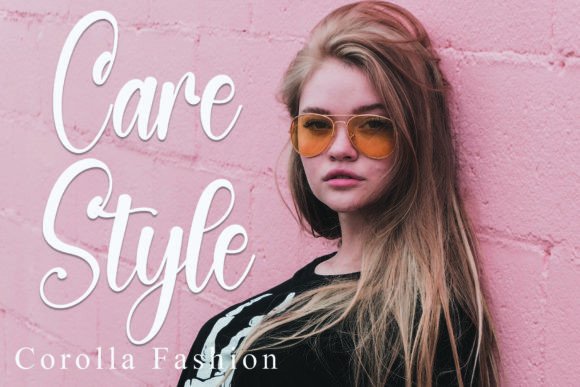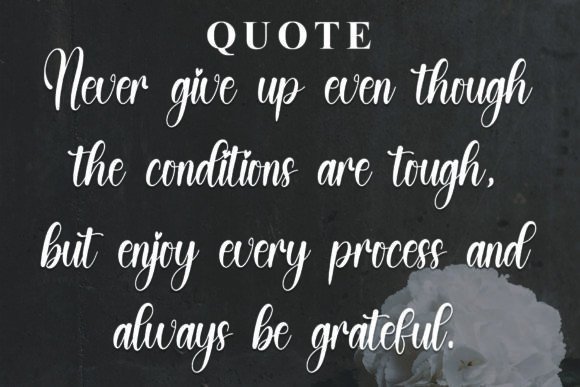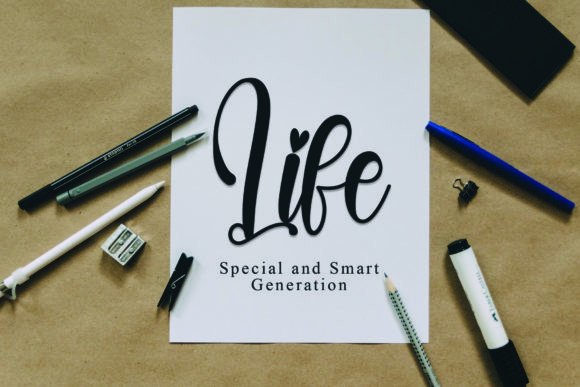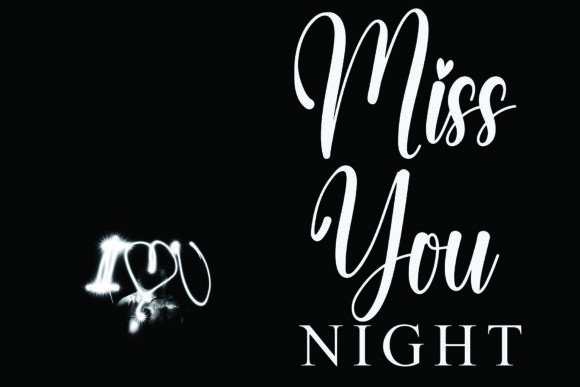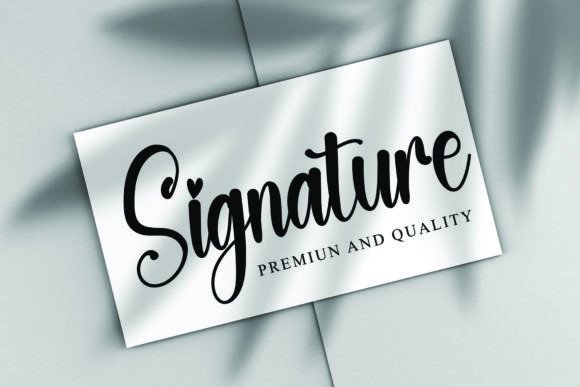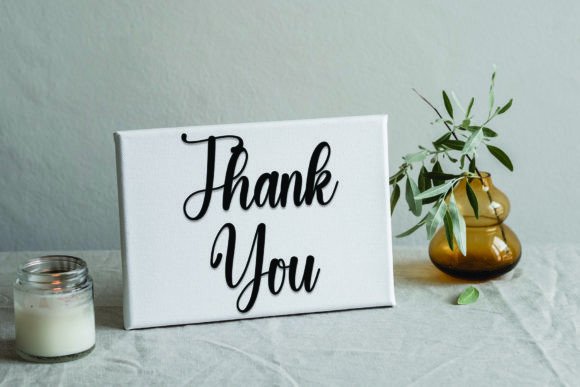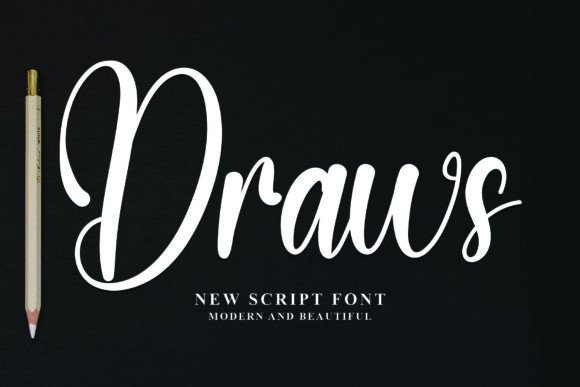
Introducing Draws Font: The Enchanting Handwritten Typeface for Your Creative Projects
Are you looking for a font that can add a touch of romance and whimsy to your designs? Look no further than Draws Font, an enchanting handwritten typeface that is perfect for a wide range of creative projects. From greeting cards to headlines, Draws Font is a versatile and beautiful addition to any design.
The Charm of Draws Font
Draws Font is a carefully crafted handwritten font that exudes a sense of elegance and sophistication. Its delicate lines and curves give it a romantic feel that is sure to captivate your audience. Whether you’re designing a wedding invitation, a birthday card, or a social media graphic, Draws Font is the perfect choice.
Key Features of Draws Font
- Handwritten style: Draws Font is a genuine handwritten typeface, giving it a personal and unique touch.
- Romantic feel: The font’s delicate lines and curves evoke a sense of romance and whimsy.
- Versatile: Draws Font can be used for a wide range of projects, from greeting cards to headlines.
- Elegant and sophisticated: The font’s classic style makes it perfect for designs that require a touch of elegance.
Uses for Draws Font
Draws Font is a versatile typeface that can be used for a wide range of creative projects. Here are some ideas to get you started:
- Greeting cards: Draws Font is perfect for creating beautiful and heartfelt greeting cards for special occasions.
- Headlines and titles: The font’s elegant style makes it ideal for use in headlines and titles.
- Social media graphics: Add a touch of romance to your social media graphics with Draws Font.
- Wedding invitations: The font’s romantic feel makes it perfect for wedding invitations and other wedding stationery.
- Branding and packaging: Draws Font can be used to add a touch of elegance to branding and packaging designs.
Tips for Using Draws Font
Here are some tips for getting the most out of Draws Font:
- Pair with other fonts: Draws Font pairs well with other fonts, such as sans-serif fonts, to create a beautiful contrast.
- Experiment with colors: The font’s elegant style looks great in a range of colors, from soft pastels to bold brights.
- Use it sparingly: Draws Font is a statement font, so use it sparingly to add impact to your design.
Draws Font is a beautiful and versatile handwritten typeface that is perfect for adding a touch of romance and whimsy to your creative projects. With its elegant style and wide range of applications, Draws Font is a must-have for designers and crafters. So why not give it a try and see the magic it can add to your designs?
Whether you’re a professional designer or a crafty DIY enthusiast, Draws Font is sure to inspire your creativity and take your designs to the next level. So go ahead, get creative, and let Draws Font work its magic on your next project!